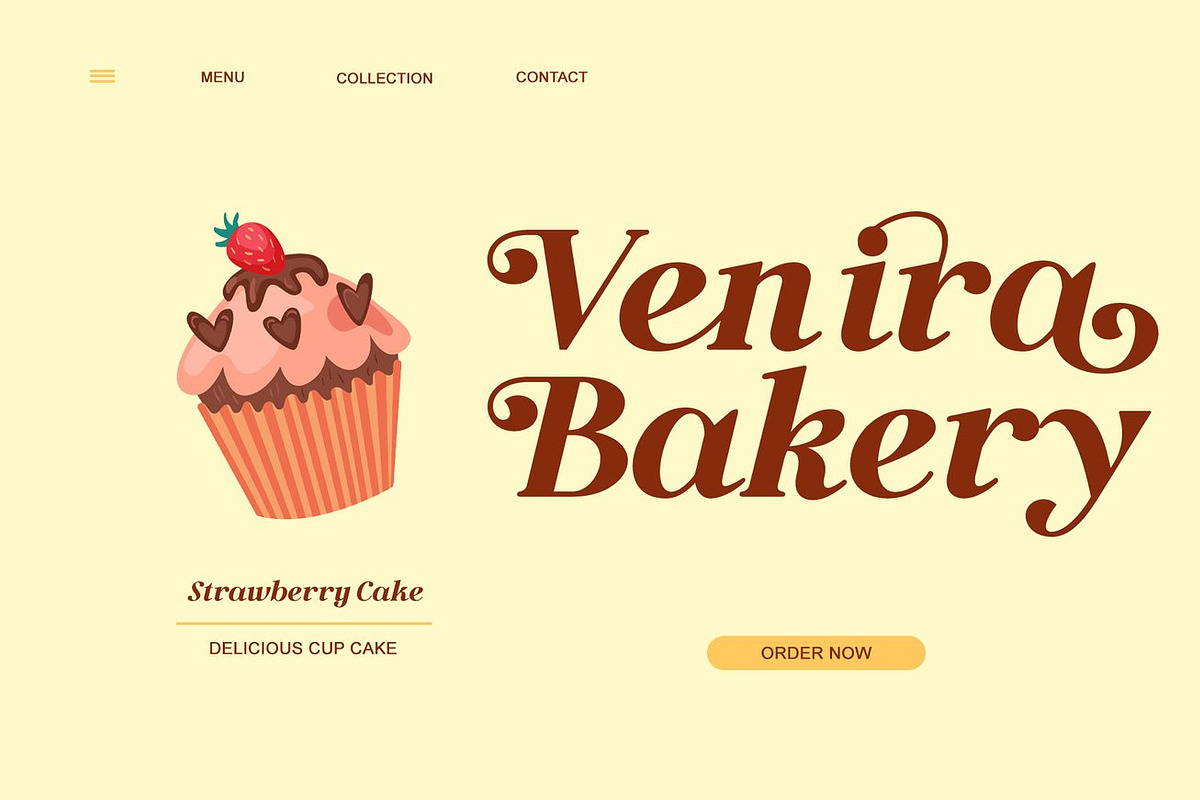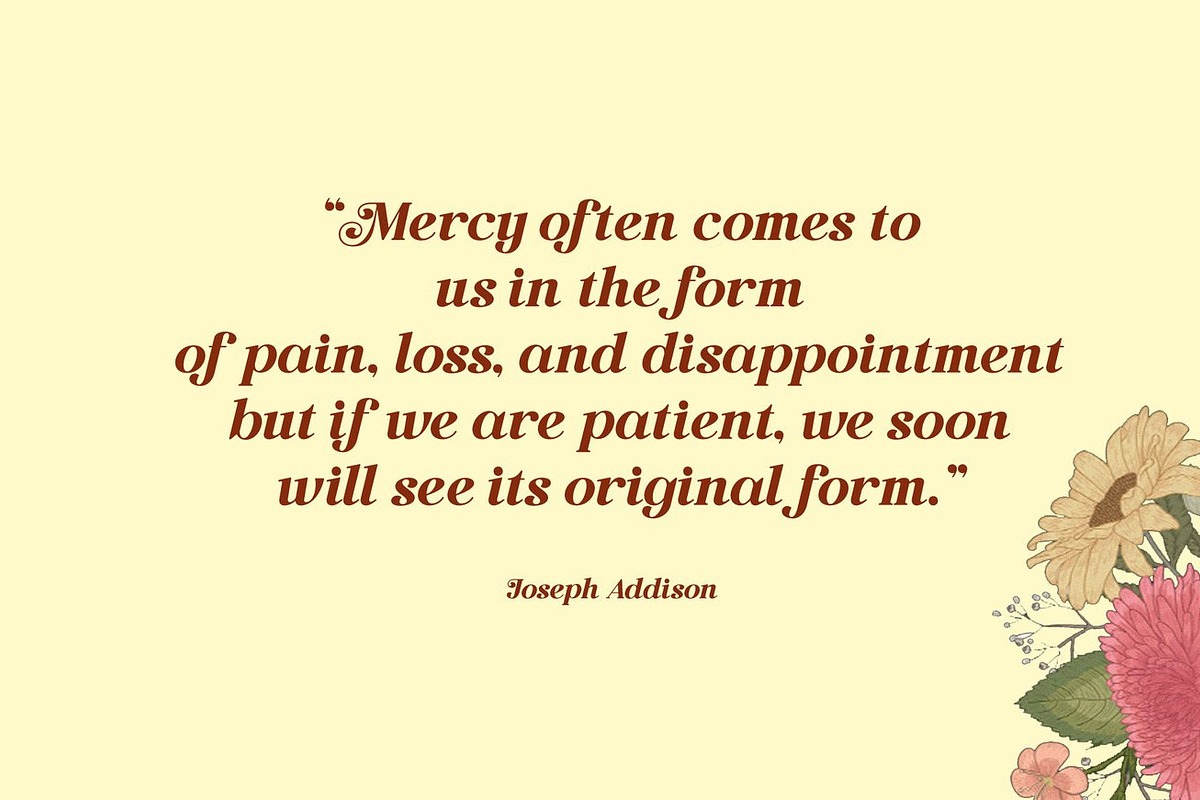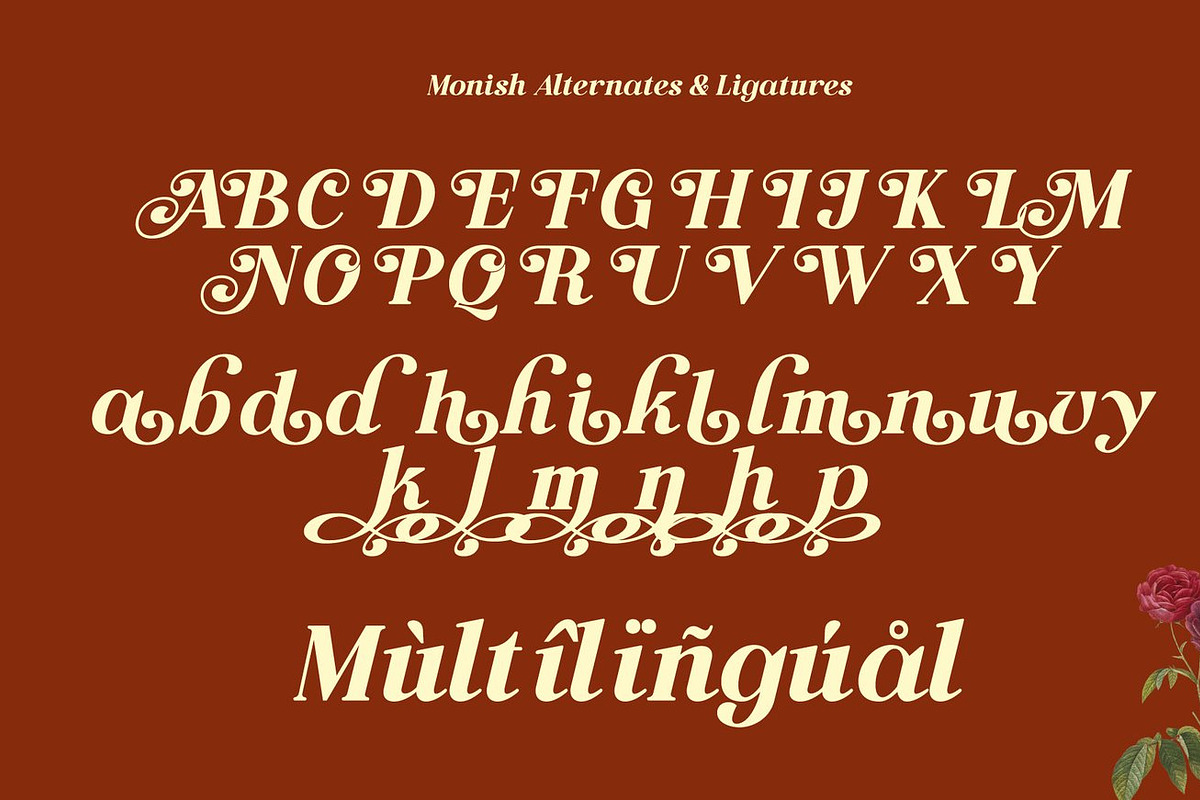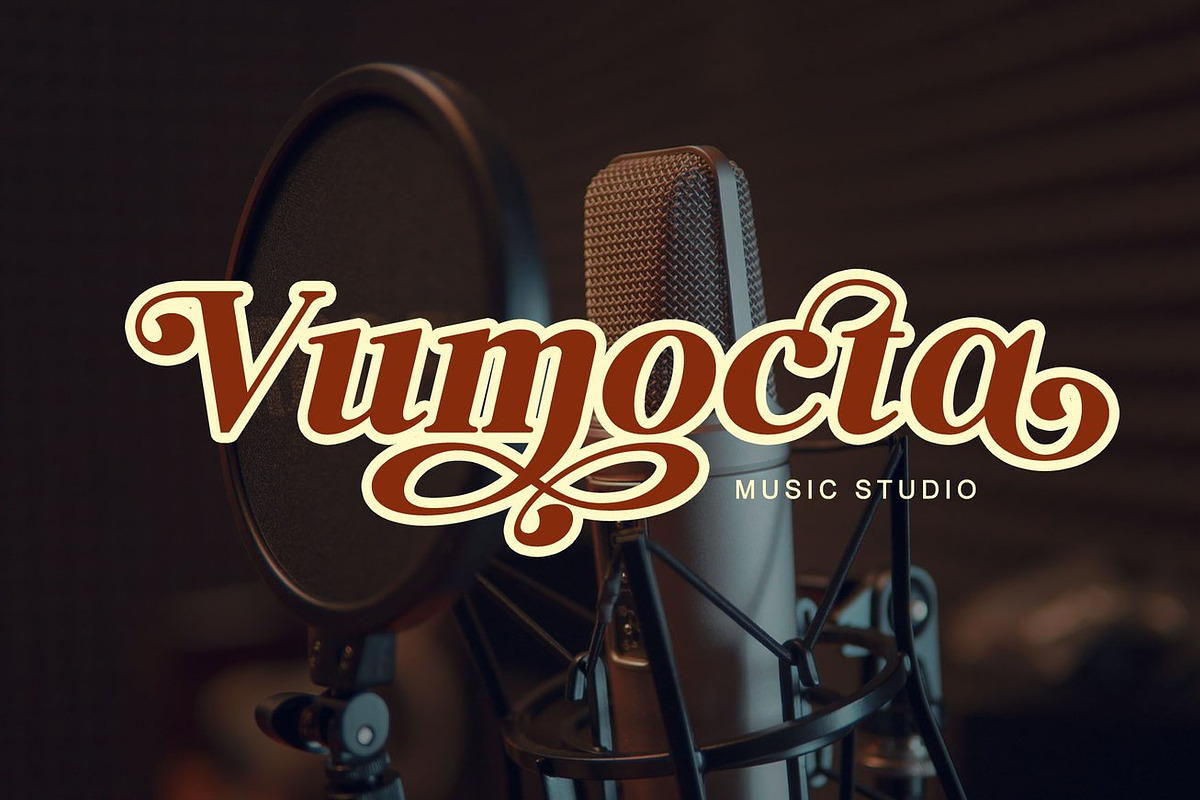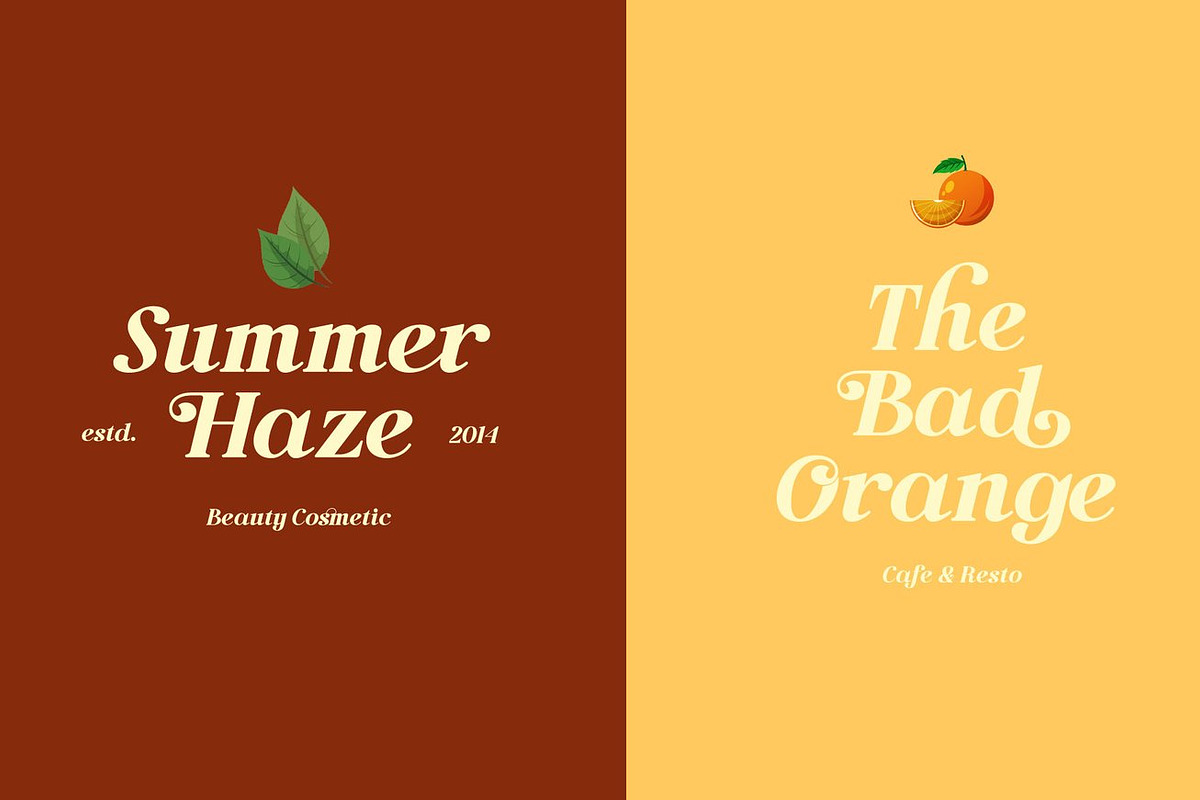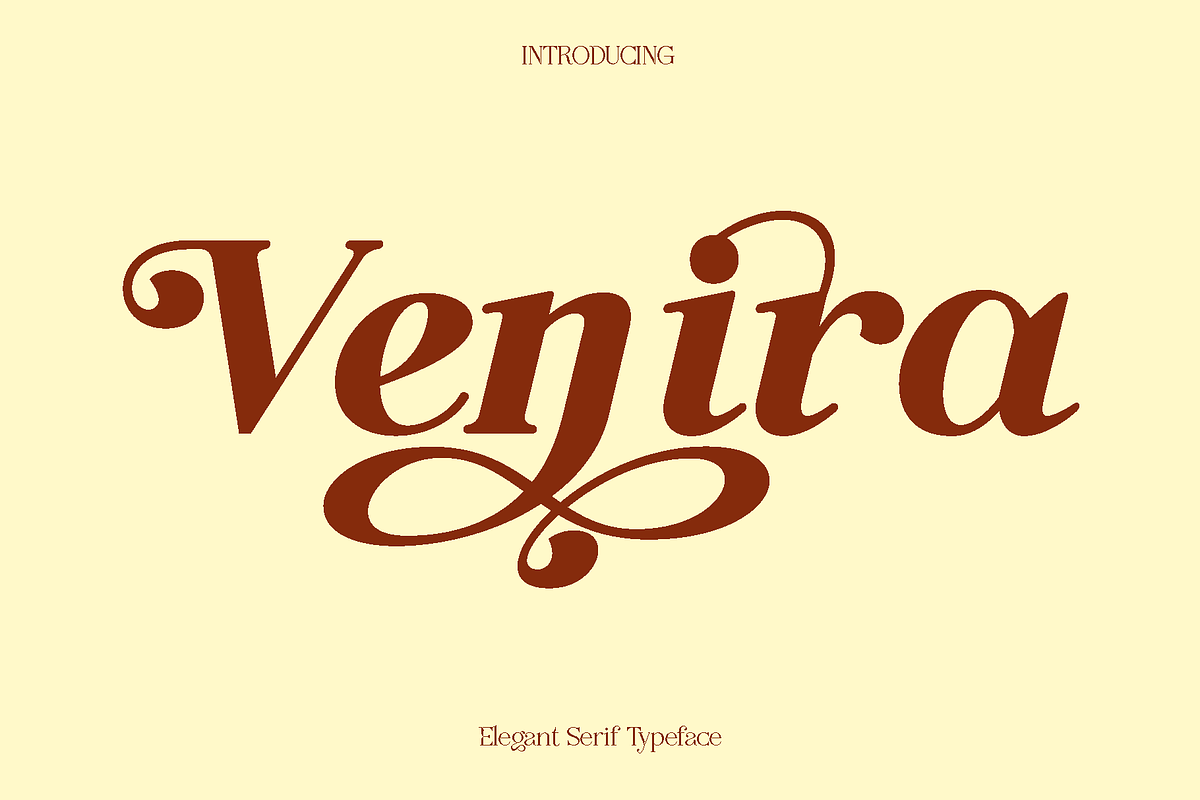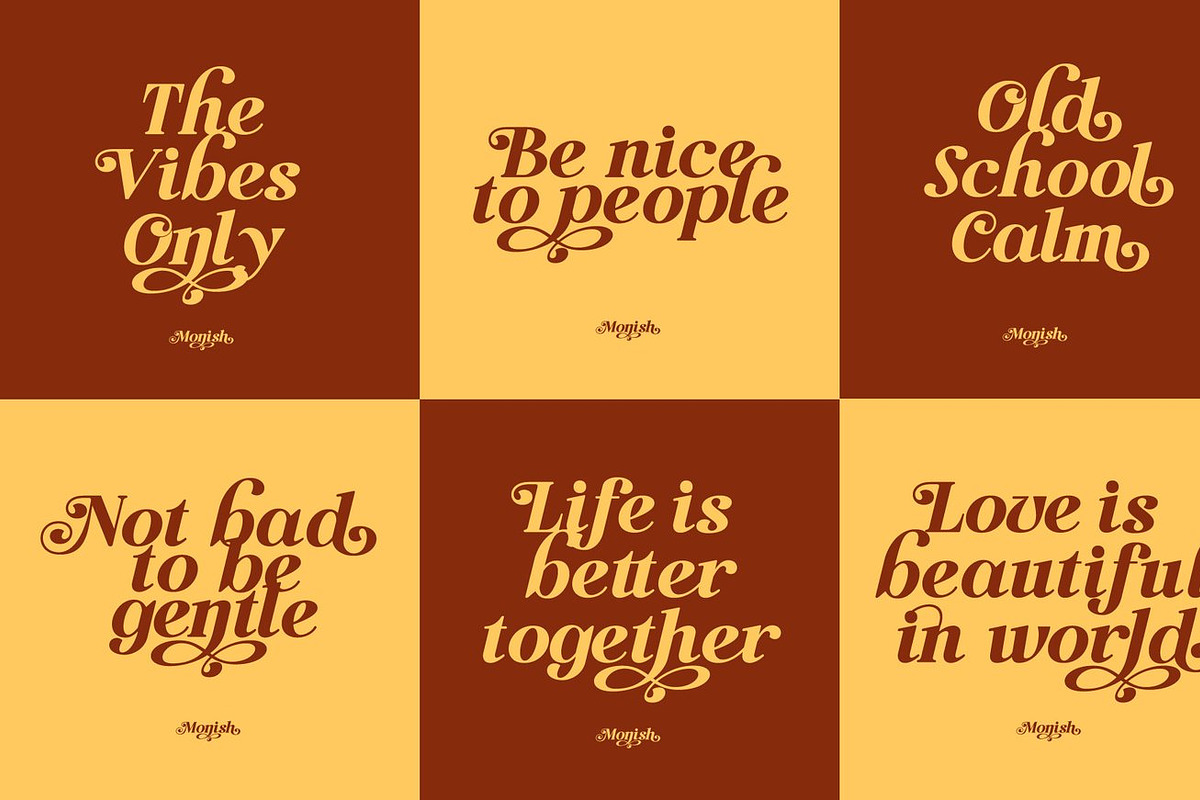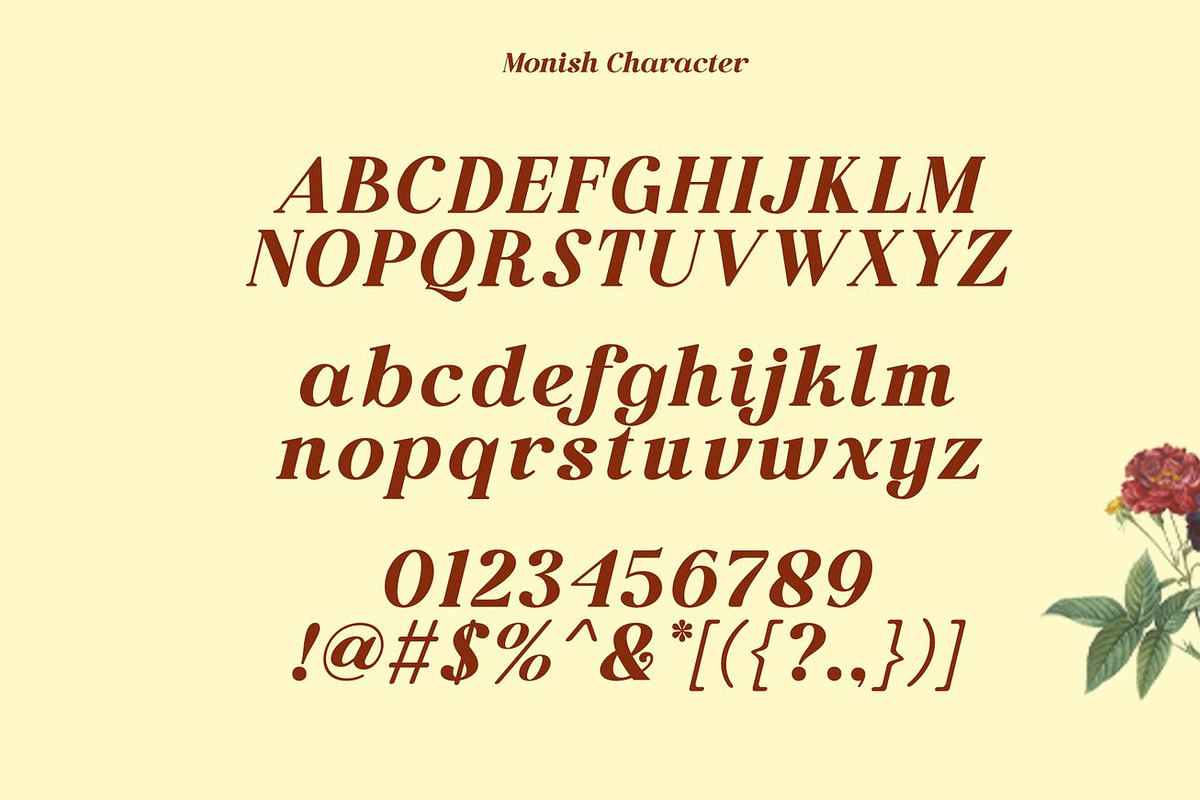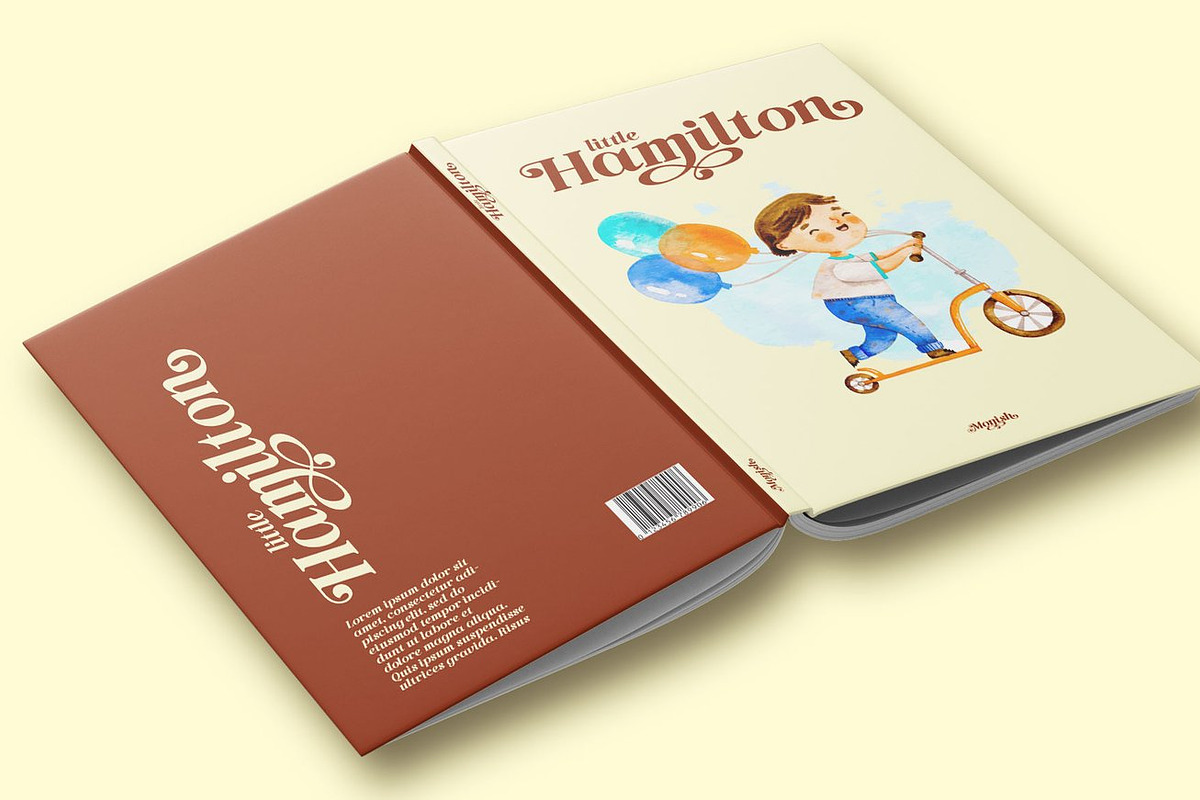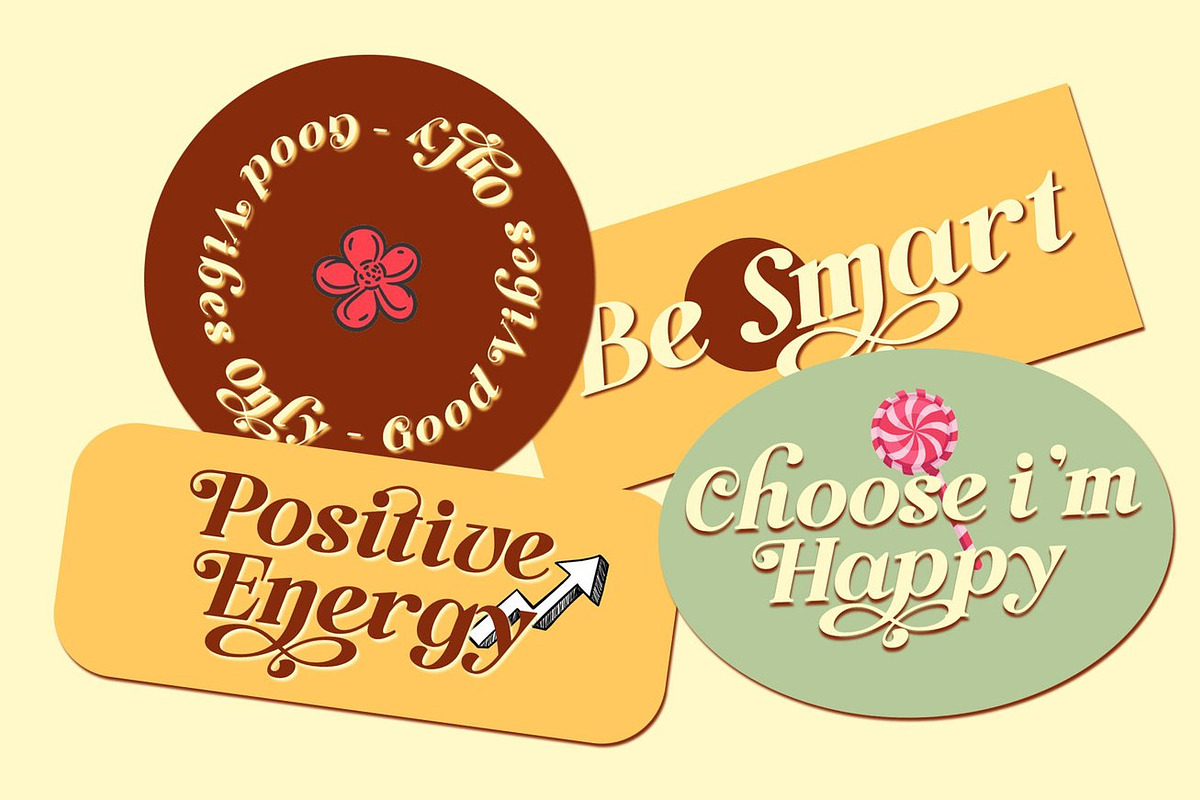
Venira - Modern Serif
Venira is a modern typeface created to bring clarity, style, and expressive elegance into a wide range of design projects. Inspired by contemporary editorial aesthetics and clean visual storytelling, Venira features balanced proportions and smooth letterforms that feel both refined and approachable. Its design focuses on readability while maintaining a distinctive personality, making it a reliable choice for creatives who want typography that looks polished and professional.
Venira shines in projects where versatility and visual harmony are essential. It works beautifully for books, magazines, branding, logos, photography overlays, quotes, blog headers, posters, and advertising materials. Whether used for bold titles or longer text compositions, Venira maintains a consistent rhythm that enhances the overall layout without overwhelming the content. Its timeless look allows it to adapt effortlessly across modern, minimal, and editorial styles.
The font feels clean, confident, and sophisticated, making it ideal for designers who want to communicate elegance with simplicity. Venira helps create a cohesive visual identity, giving your work a refined presence across both digital and print applications. With its functional design and strong readability, it becomes a dependable tool for everyday creative needs.
Venira Font Features:
• Uppercase and lowercase characters
• Numerals and functional symbols
• Multilingual support